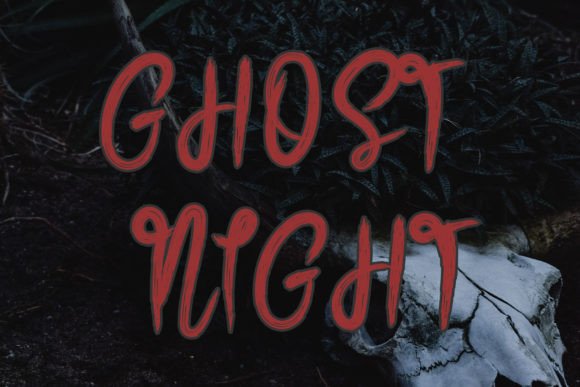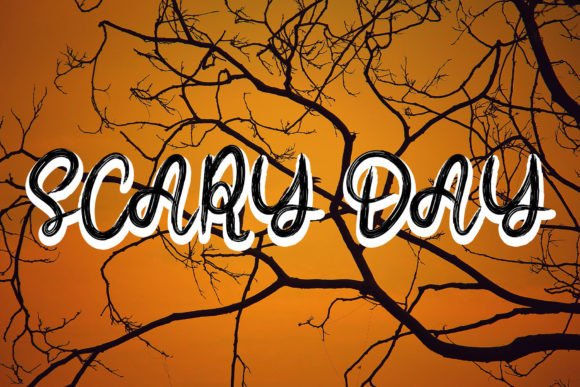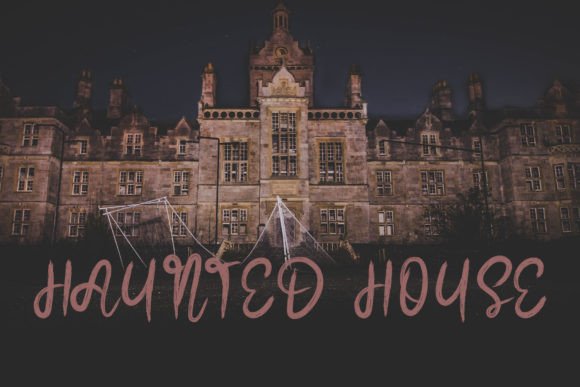
About Spooky Font
Introducing “SPOOKY,” a scary font that exudes a minimal yet impactful brushstroke effect, creating an ambiance of horror. The letters are designed to evoke a sense of spookiness, making it an excellent choice for invitations, postcards, posters, and headings for Halloween events. This versatile font can be effectively used in various settings where a touch of frightful and eerie aesthetics is desired.
The minimal brushstroke effect in “SPOOKY” contributes to its eerie and unsettling ambiance. Each letter is crafted to convey a sense of horror, making it a perfect fit for Halloween-themed designs.
For invitations, “SPOOKY” sets the tone for a thrilling and scary event. The font’s design creates anticipation and excitement, adding an extra layer of spookiness to the occasion.
Postcards and posters benefit from the font’s ability to instantly communicate a sense of horror. “SPOOKY” becomes a visual element that captures attention and creates a memorable impact.
As a heading font for Halloween events, “SPOOKY” brings a thematic and cohesive design element. It enhances the overall visual identity of the event, making it more engaging and immersive.
The versatility of “SPOOKY” allows it to be used in various settings beyond Halloween. It can be employed wherever a scary or eerie aesthetic is appropriate, providing a unique and impactful typographic choice.
In summary, “SPOOKY” is a font designed to bring a minimal yet effective brushstroke of horror. Its versatility makes it suitable for a range of design applications, particularly in settings where a spooky atmosphere is desired, such as Halloween events, invitations, postcards, posters, and more.